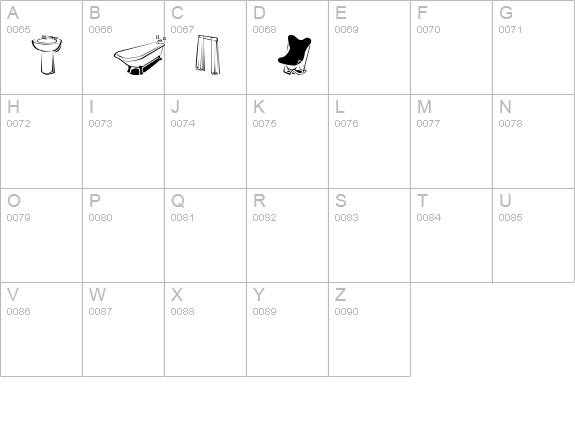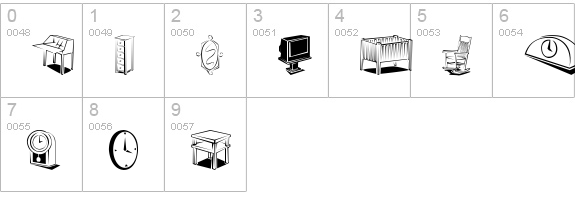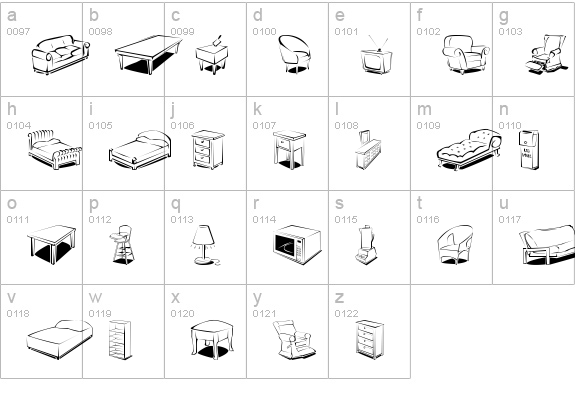
Homestead Font Details
Homestead font is a charming and versatile typeface that exudes a rustic and vintage aesthetic. With its handcrafted feel and classic appeal, Homestead font is perfect for a wide range of design projects, from branding and packaging to invitations and signage. This font features a unique blend of elegance and simplicity, making it suitable for both traditional and modern designs. Its distinct character and warm personality will add a touch of authenticity to any project. Best of all, Homestead font is available for free download at FontsMarket.com. Whether you're a seasoned designer or just starting out, this font is a valuable addition to your collection. Don't miss the opportunity to enhance your designs with the timeless beauty of Homestead font.